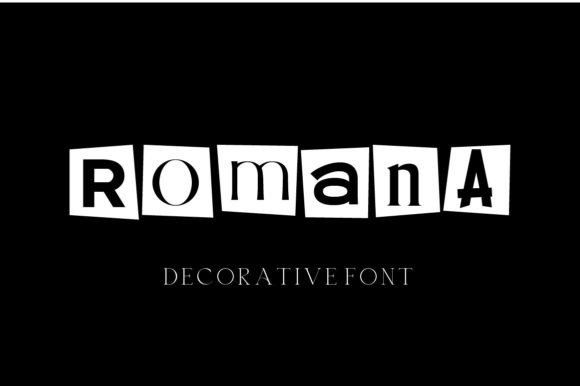
Romana Font: Elevate Your Designs with a Timeless Serif Font
The Romana Font, also known as Ramona, is a classic decorative font with a serif family style that can add a touch of elegance and sophistication to any design project. Whether you’re working on invitations, cards, or other creative endeavors, this beautiful font is sure to make a lasting impression.
What is Romana Font?
Romana Font is a type of serif font that features decorative elements, making it perfect for designs that require a touch of luxury and refinement. The font’s classic design is inspired by traditional serif fonts, with elegant lines and curves that give it a timeless feel.
Key Features of Romana Font
- Serif style: Romana Font features a classic serif style, with small lines or flourishes at the ends of the letters.
- Decorative elements: The font includes decorative elements, such as elegant lines and curves, that add to its luxurious feel.
- Timeless design: Romana Font’s classic design ensures that it will remain stylish and relevant for years to come.
- Versatile: This font can be used for a wide range of design projects, from invitations and cards to posters and other marketing materials.
Uses of Romana Font
Romana Font is a versatile font that can be used for a variety of design projects. Here are some ideas for using this beautiful font:
Perfect for:
- Invitations: Add a touch of elegance to your wedding invitations, birthday party invites, or other special event invitations.
- Cards: Create beautiful greeting cards for special occasions, such as holidays, birthdays, or anniversaries.
- Posters and flyers: Use Romana Font to create eye-catching posters and flyers for events, promotions, or products.
- Logos and branding: This font can be used to create a logo or branding elements for businesses, organizations, or personal projects.
Benefits of Using Romana Font
Using Romana Font in your design projects offers several benefits, including:
Why Choose Romana Font?
- Elegance and sophistication: Romana Font adds a touch of luxury and refinement to any design project.
- Timeless design: The font’s classic design ensures that it will remain stylish and relevant for years to come.
- Versatility: Romana Font can be used for a wide range of design projects, from invitations and cards to posters and other marketing materials.
- Easy to read: The font’s clear and legible design makes it easy to read, even at smaller sizes.
Tips for Using Romana Font
Here are some tips for using Romana Font in your design projects:
Get the Most Out of Romana Font
- Use it sparingly: Romana Font is a decorative font, so use it sparingly to add emphasis and elegance to your design.
- Pair it with other fonts: Combine Romana Font with other fonts to create a unique and visually appealing design.
- Experiment with sizes and colors: Try out different sizes and colors to see what works best for your design.
- Pay attention to spacing: Make sure to leave enough space between lines and elements to create a clean and easy-to-read design.
In conclusion, Romana Font is a beautiful and versatile decorative font with a serif family style that can add a touch of elegance and sophistication to any design project. Its classic design, decorative elements, and timeless feel make it perfect for invitations, cards, posters, and other marketing materials. With its ease of use and versatility, Romana Font is a great choice for designers and non-designers alike.